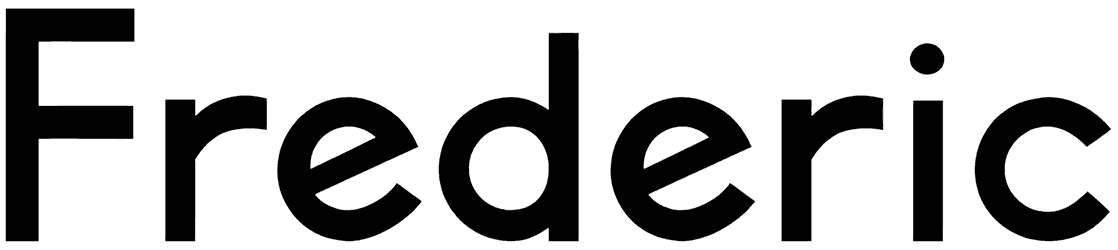
Frederic Font
If you are looking for a modern sans serif font that comes with a simple form and looks elegant, then a lovely masterpiece the same as Frederic really deserves to be on your radar.
Since it comes with clean shapes, it has the true potential to add a sense of futuristic comfort, viability, and dynamism to all of your graphic content. We believe that including this font in posters, applications, business cards, and branding projects would be really effective.